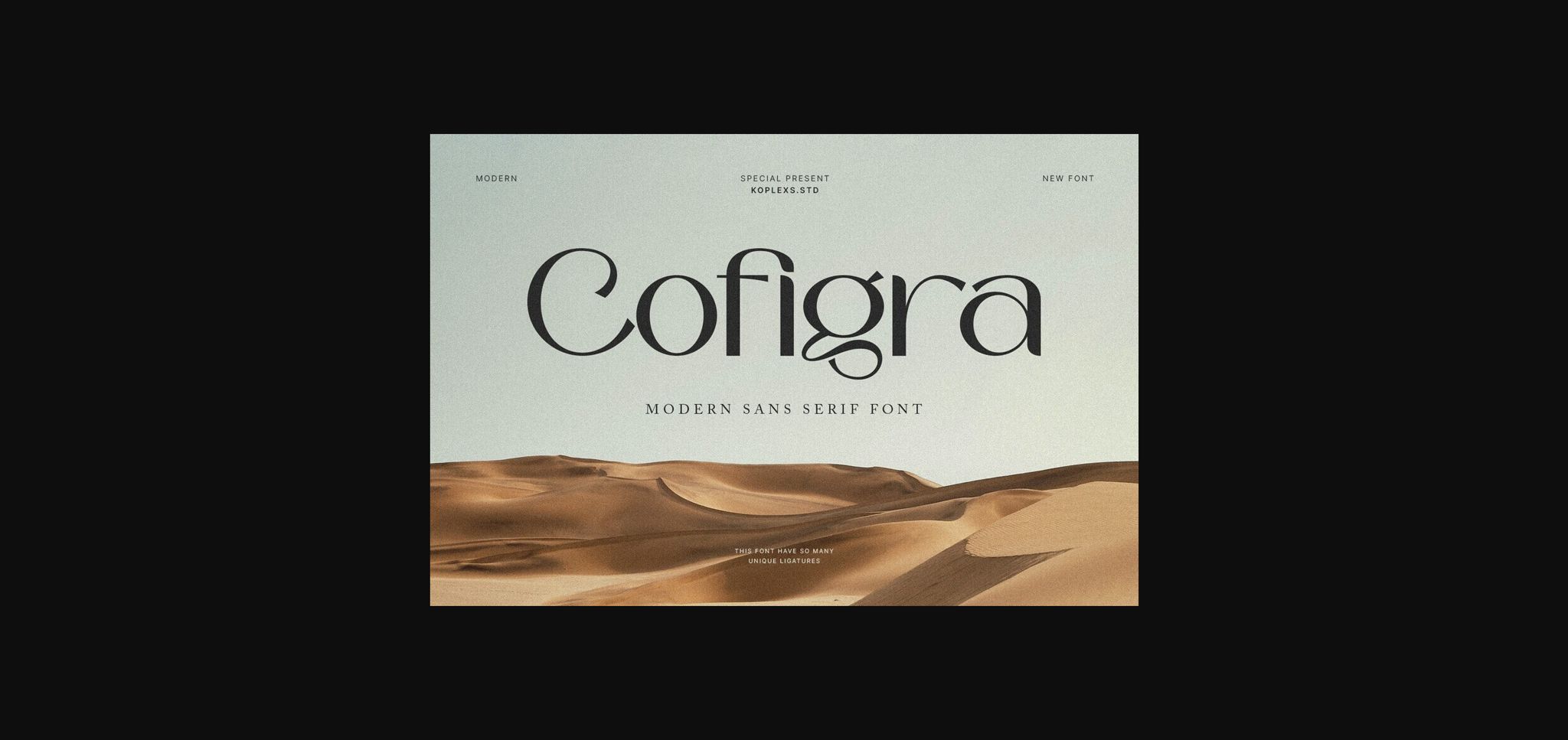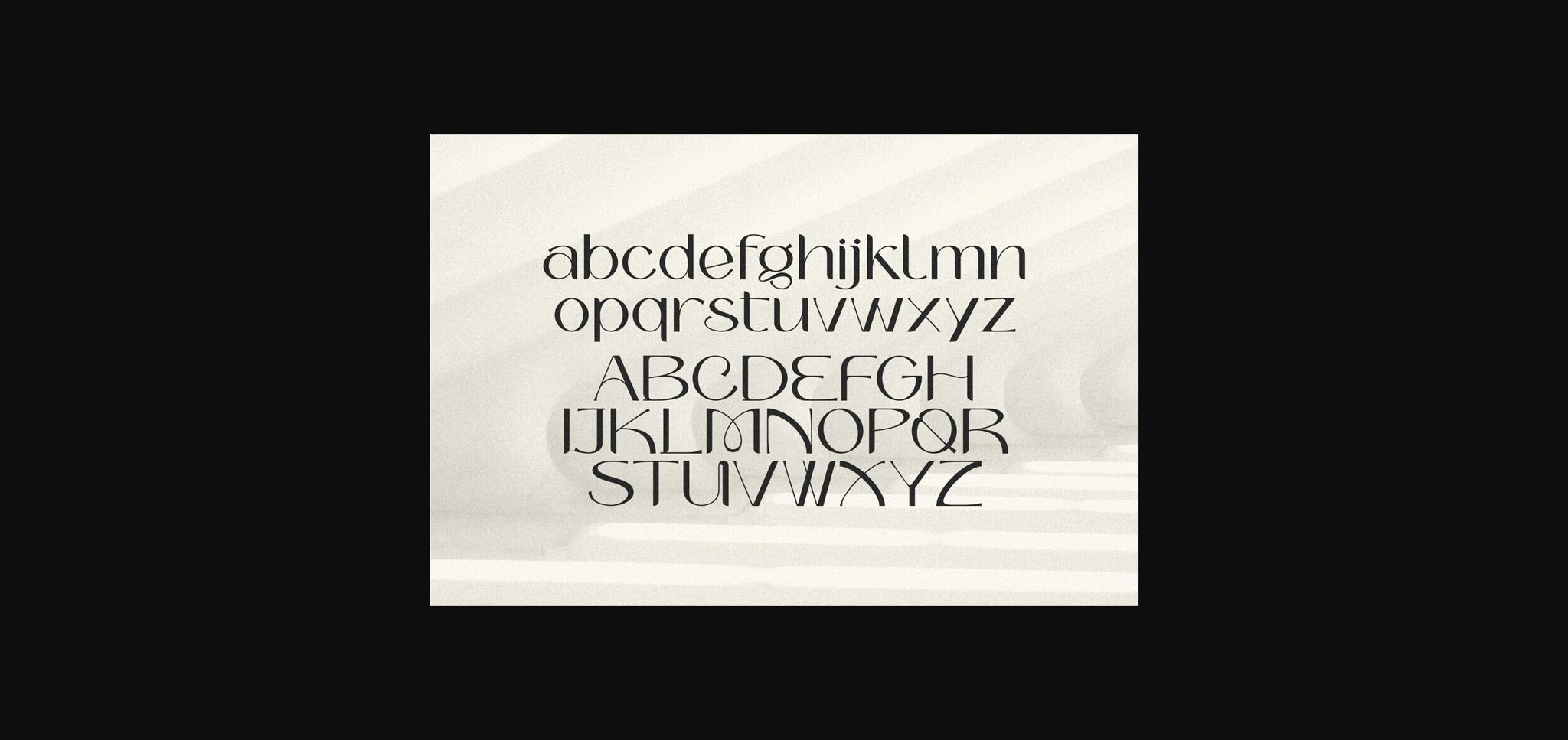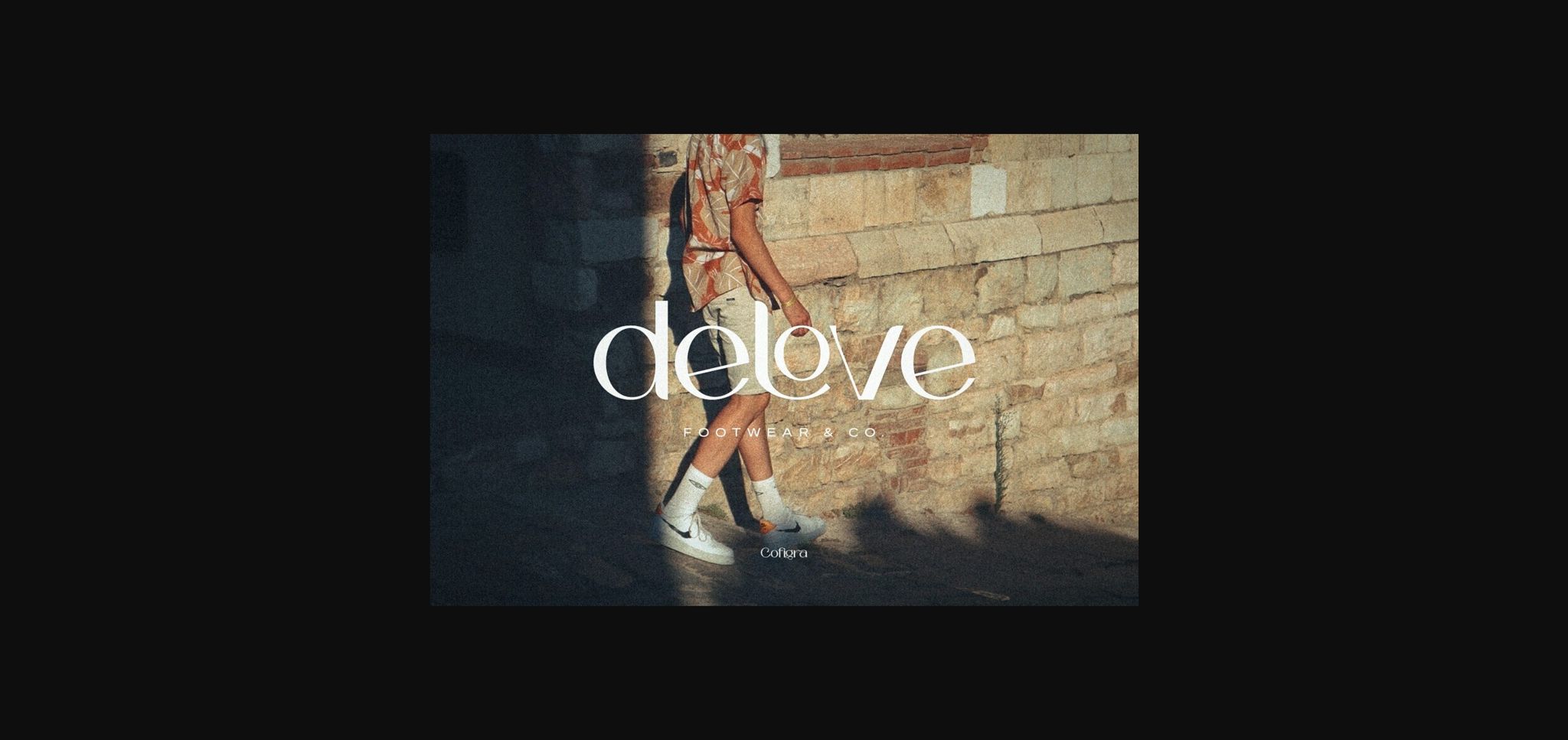
About Cofigra Font
Cofigra has a blend of beauty and classy feel, which has a variety of uses but is primarily intended for logos, book covers, perfumes, fashion magazines, or invitations. Not only will you find lots of decorative characters, but also the number of unique alternative characters will make you fall in love with this font.